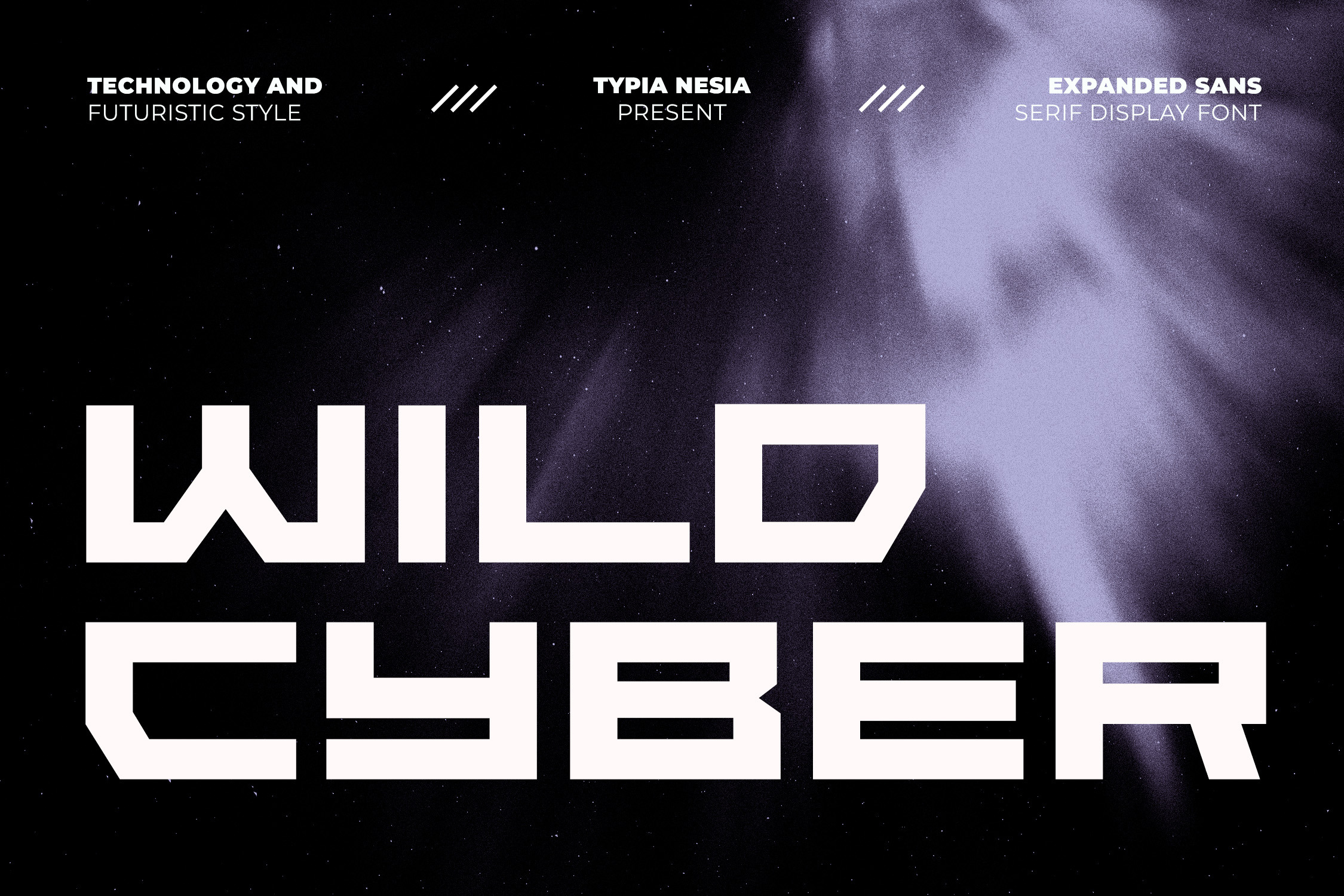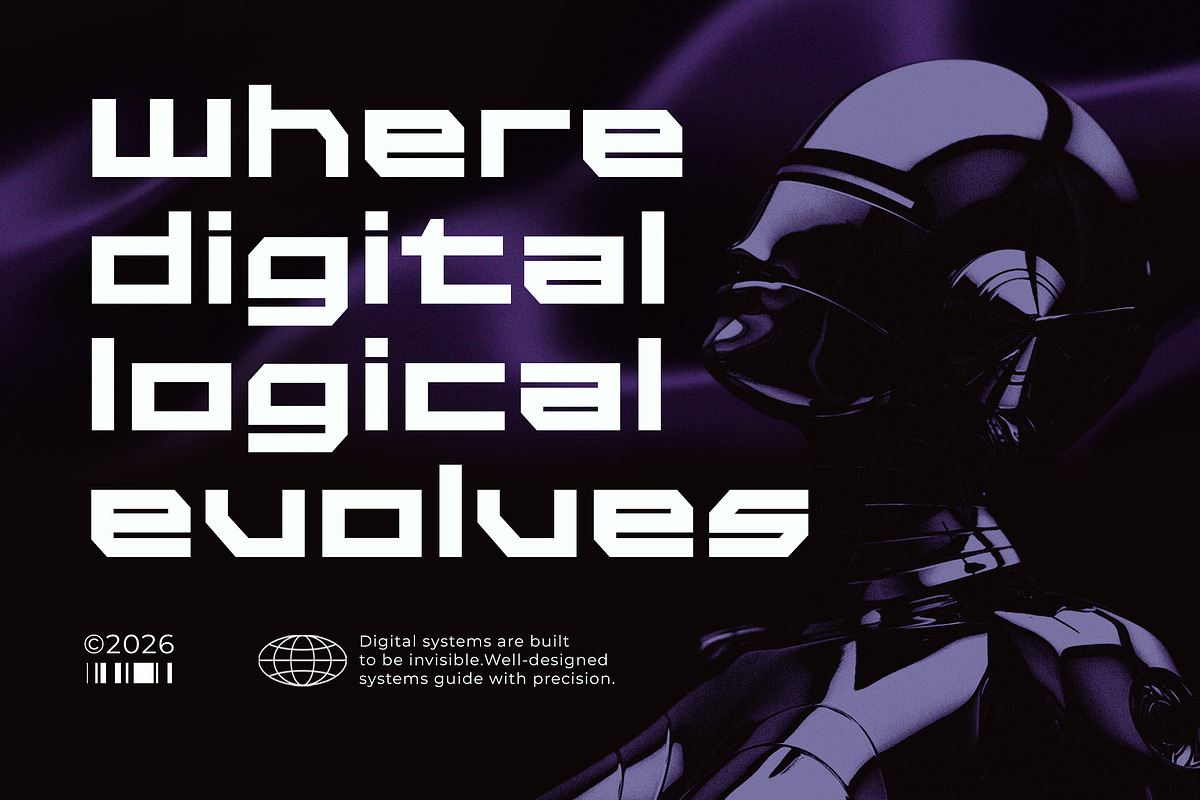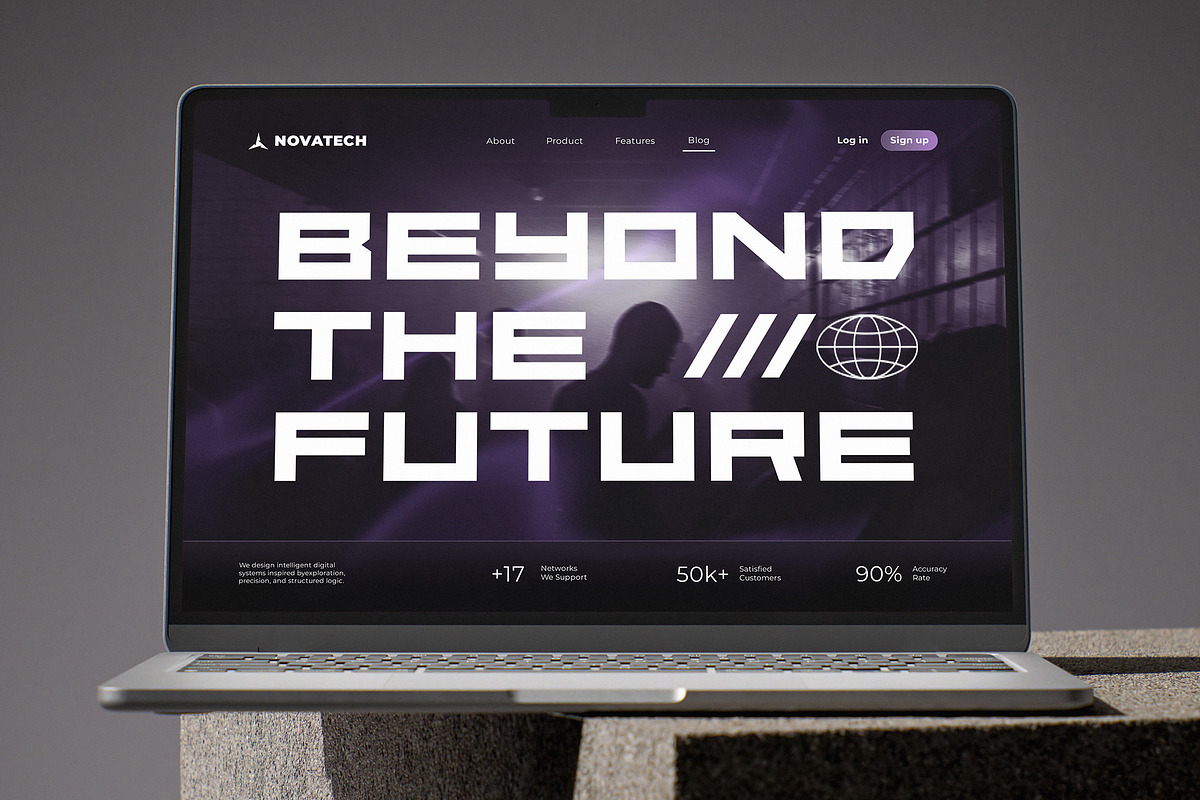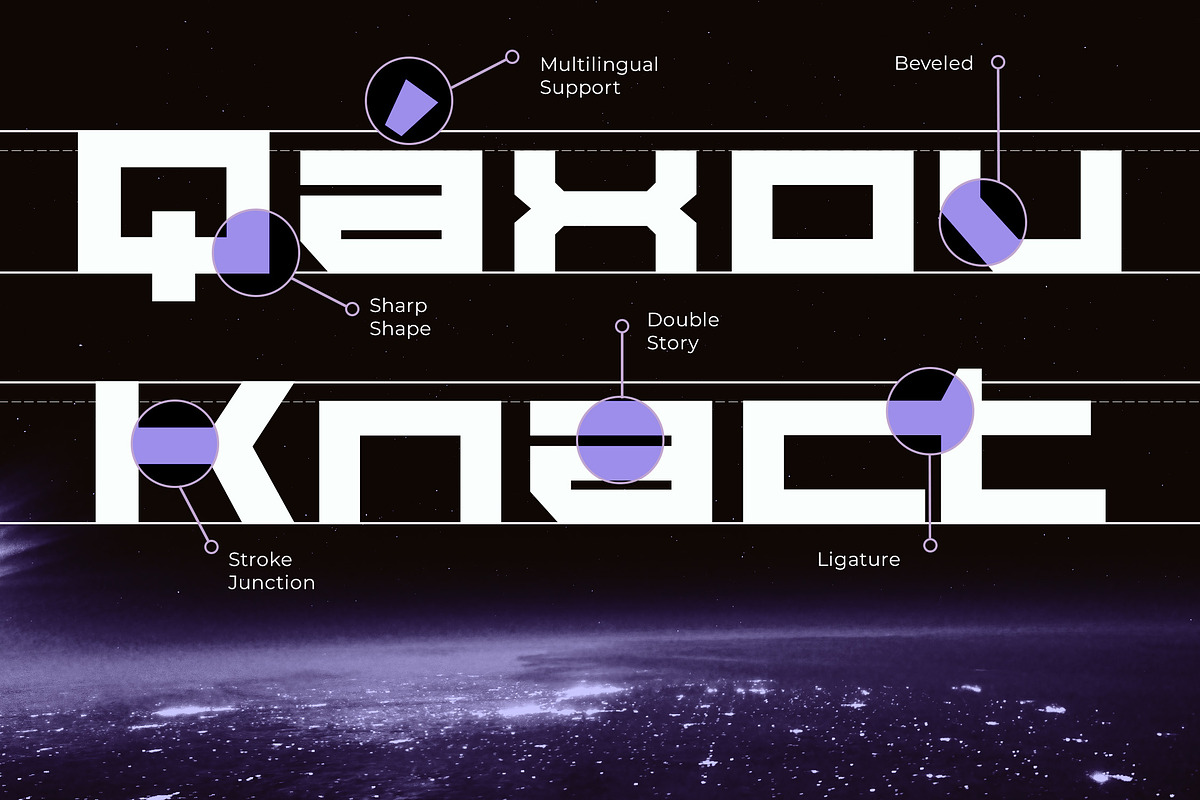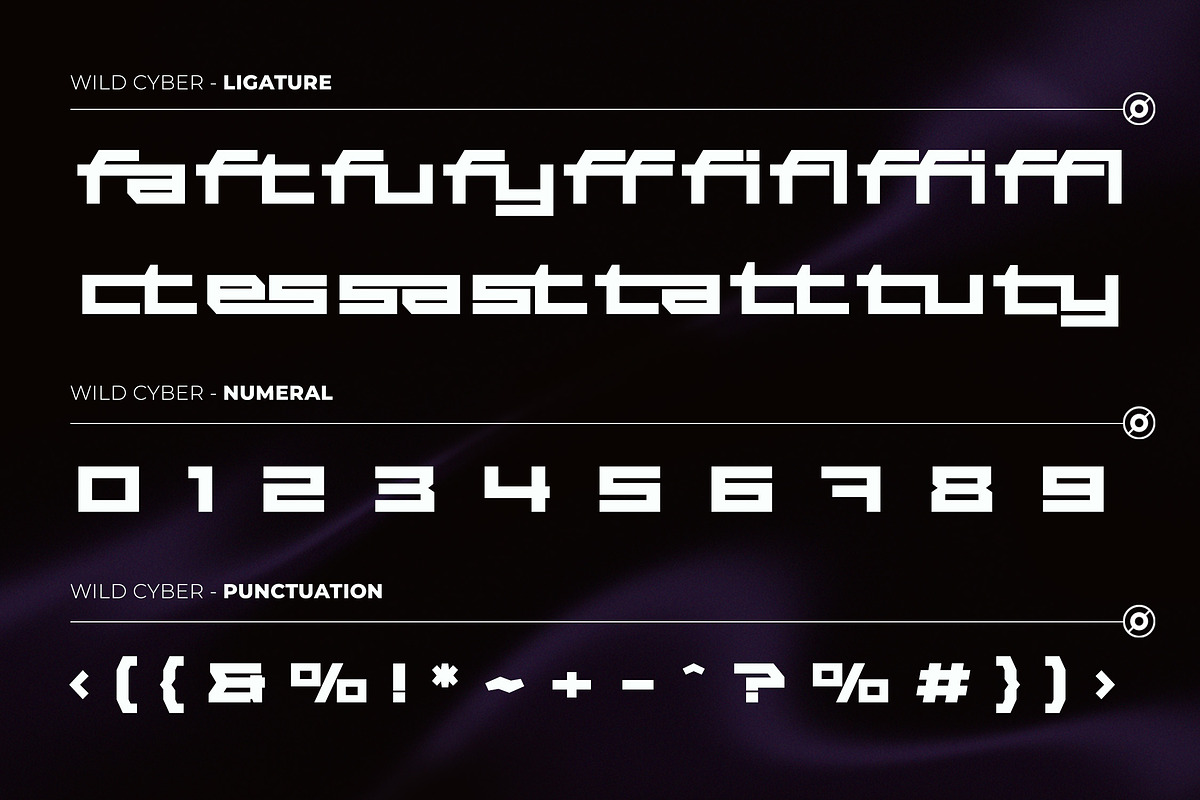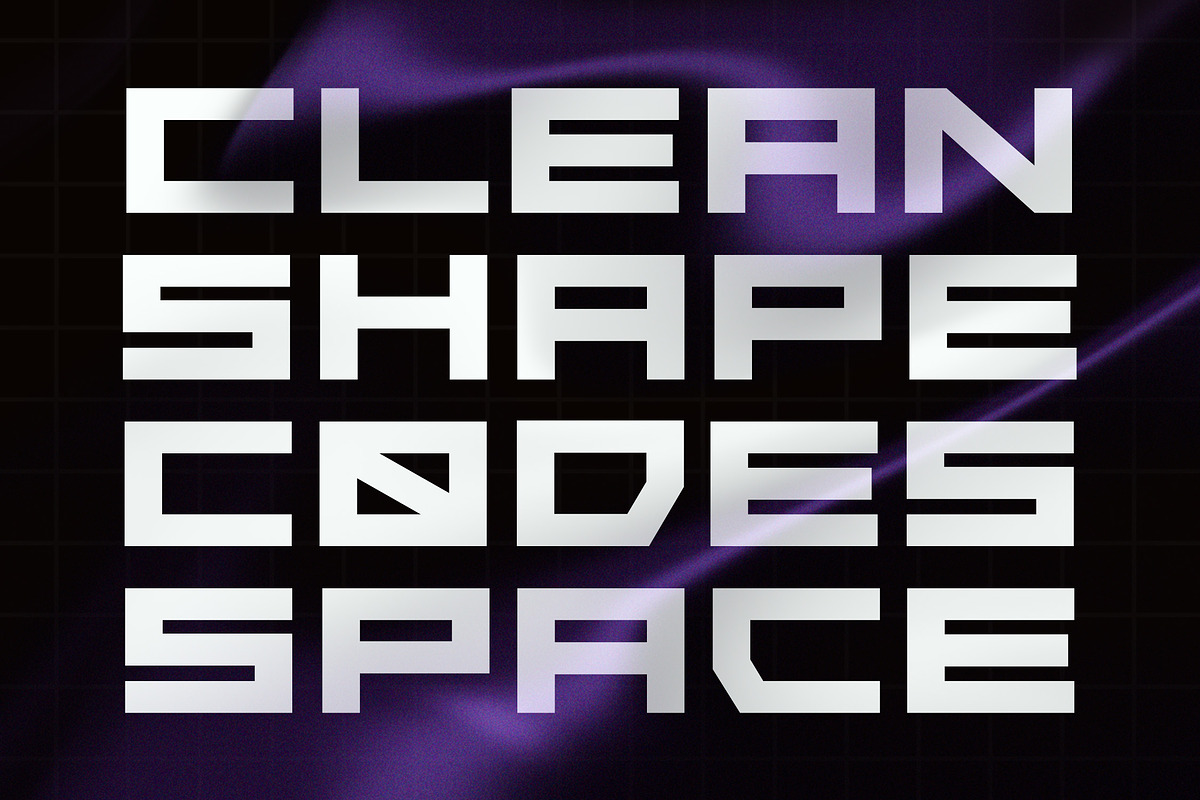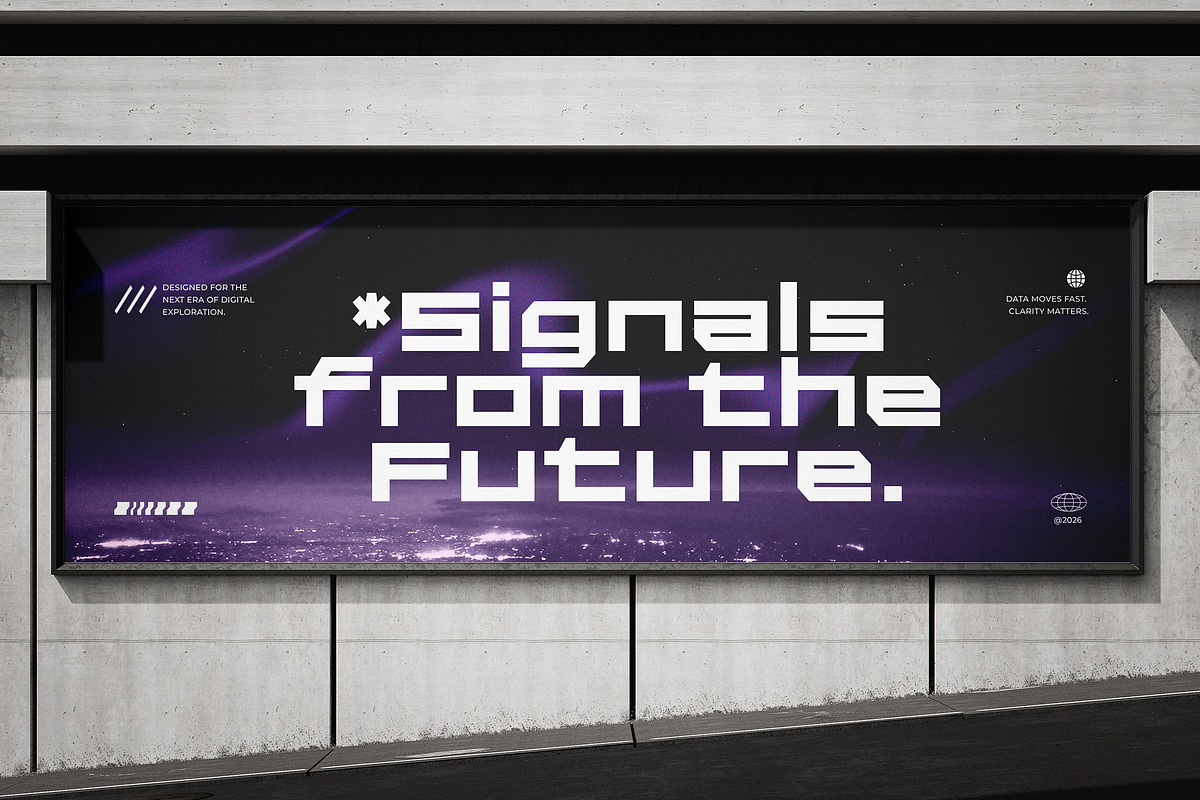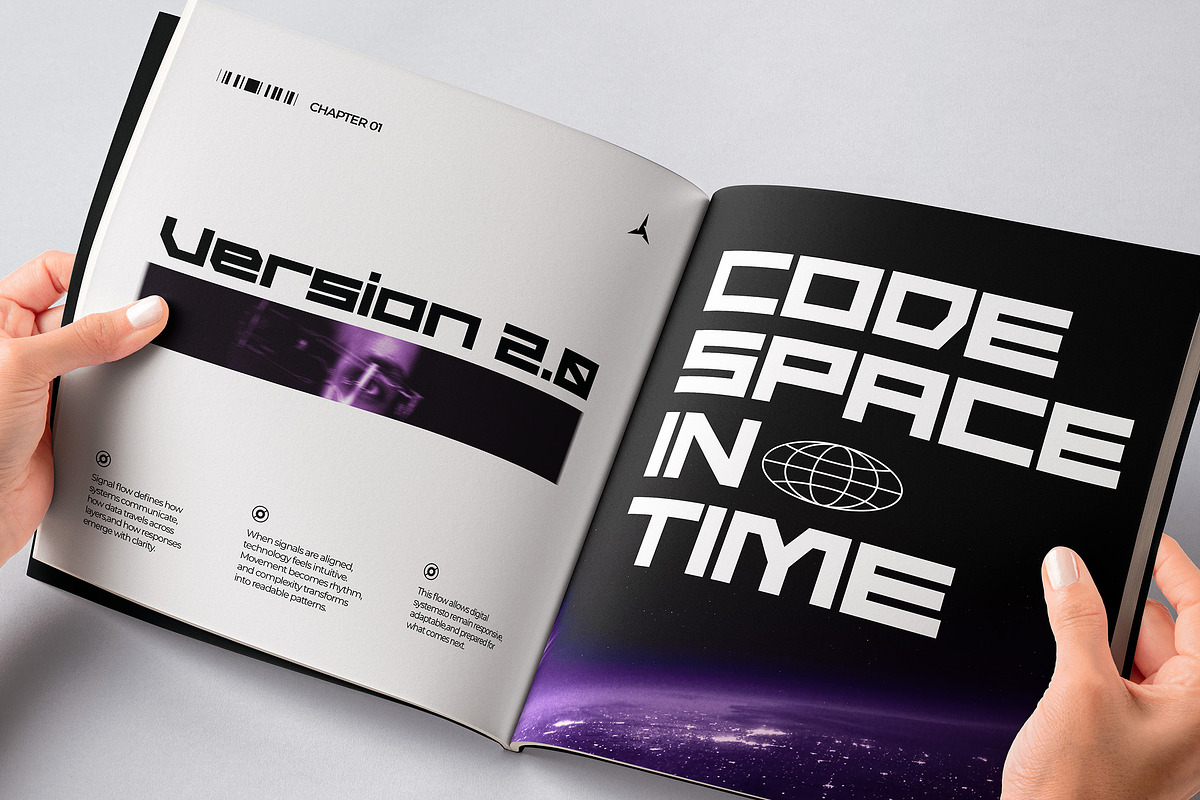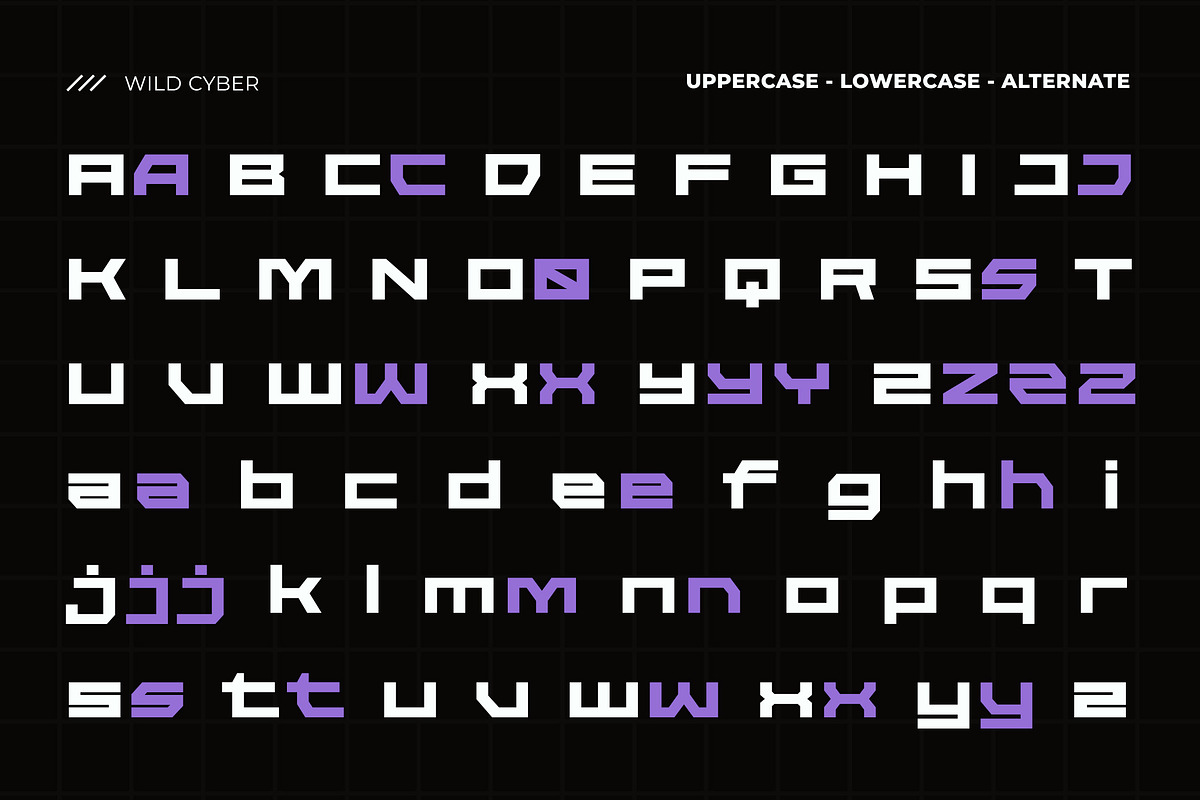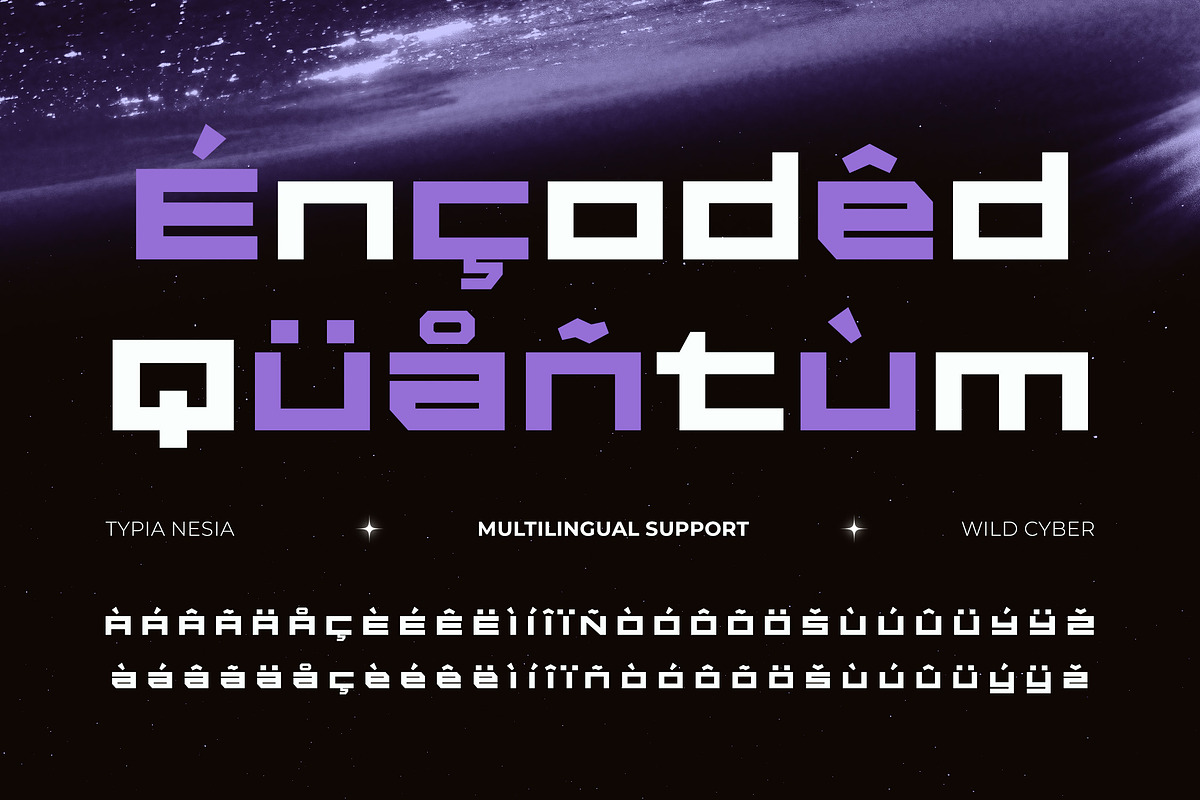
Wild Cyber - Modern Futuristic Font
Wild Cyber - Modern Futuristic Expanded Boxy Sans Font - Bold Sci-Fi Cyberpunk Logo Font
Wild Cyber is a modern futuristic expanded boxy sans font designed to deliver bold and powerful visual impact. Featuring sharp geometric shapes and strong boxy structures, this typeface embodies a high-tech, sci-fi, and cyberpunk aesthetic perfect for today’s digital era. Its expanded and bold letterforms make it ideal for logo design, tech branding, game titles, esports identities, sports graphics, corporate branding, advertising campaigns, posters, striking headlines, logotypes, digital product branding, sci-fi-themed visuals, and any project that needs a dynamic and innovative character. This sans-serif font ensures maximum visibility and a strong modern presence across both digital and print media.